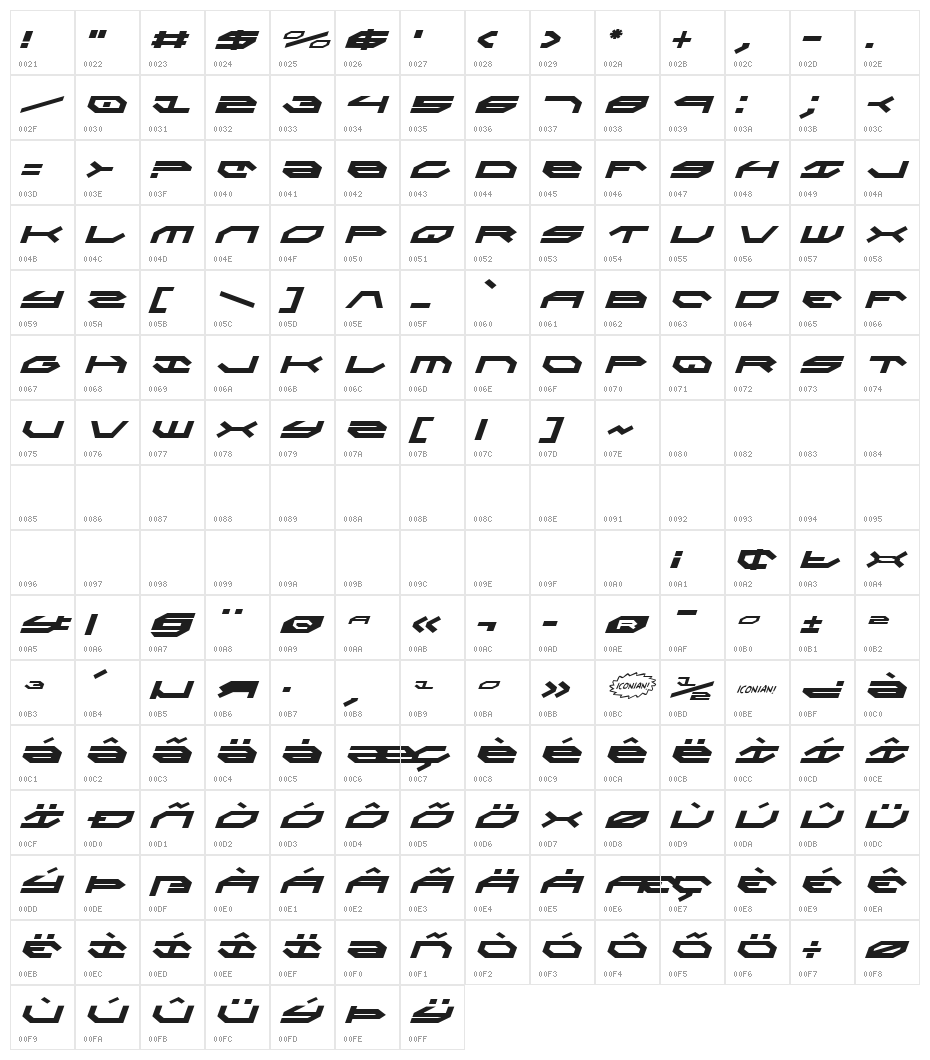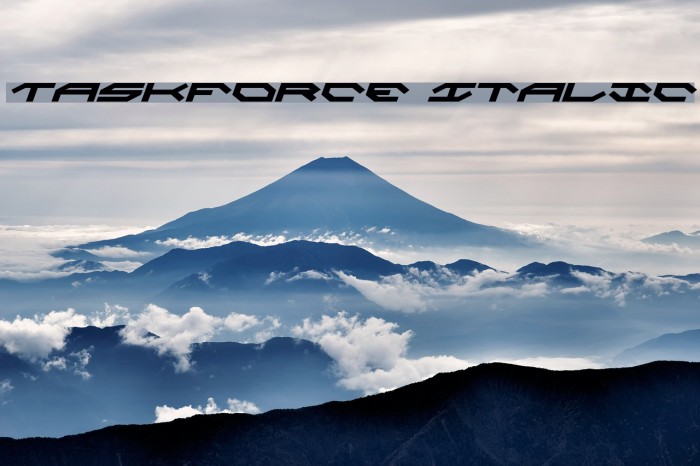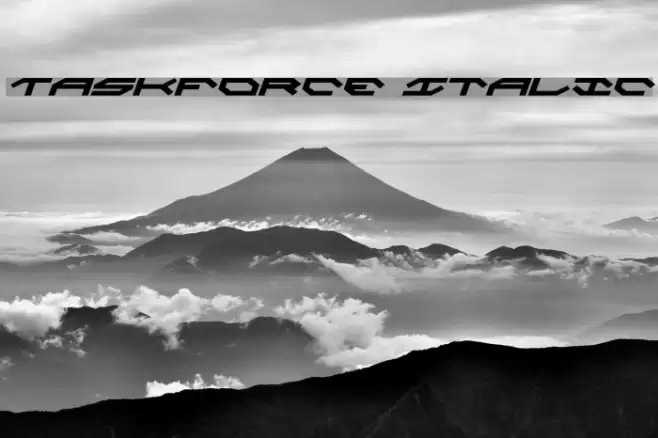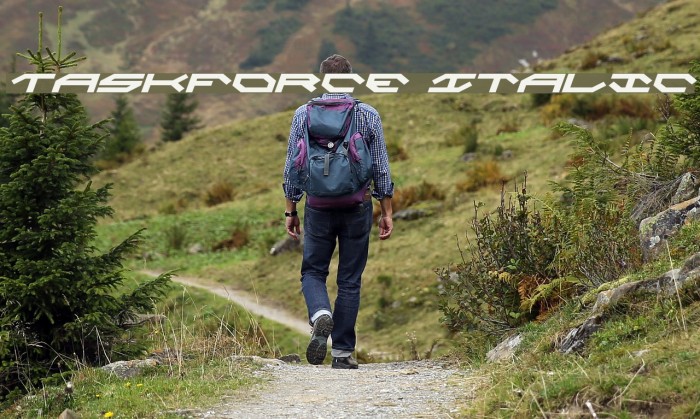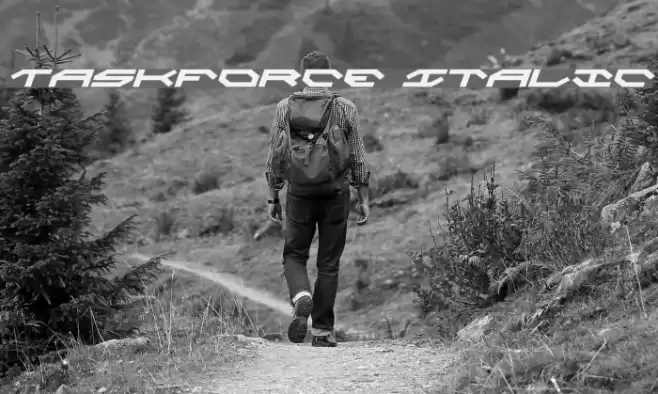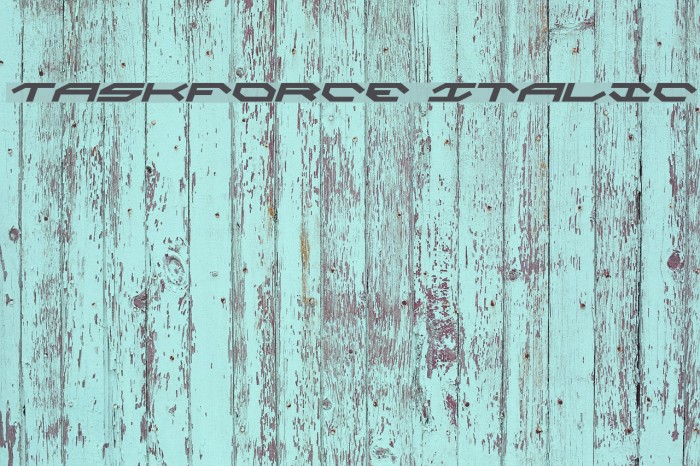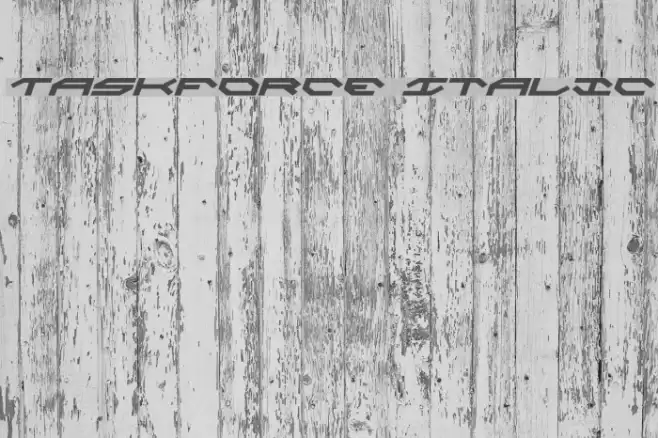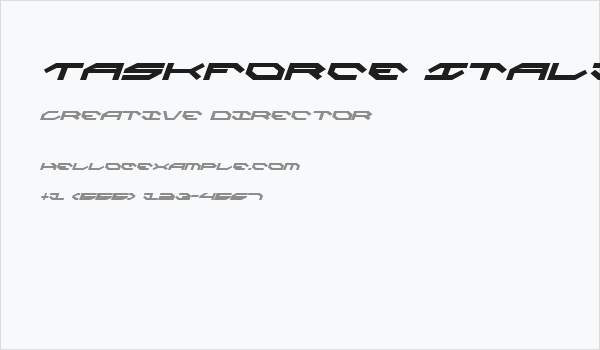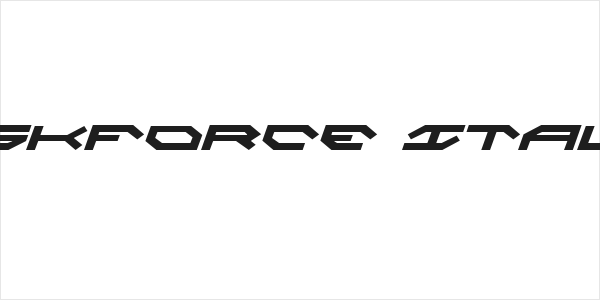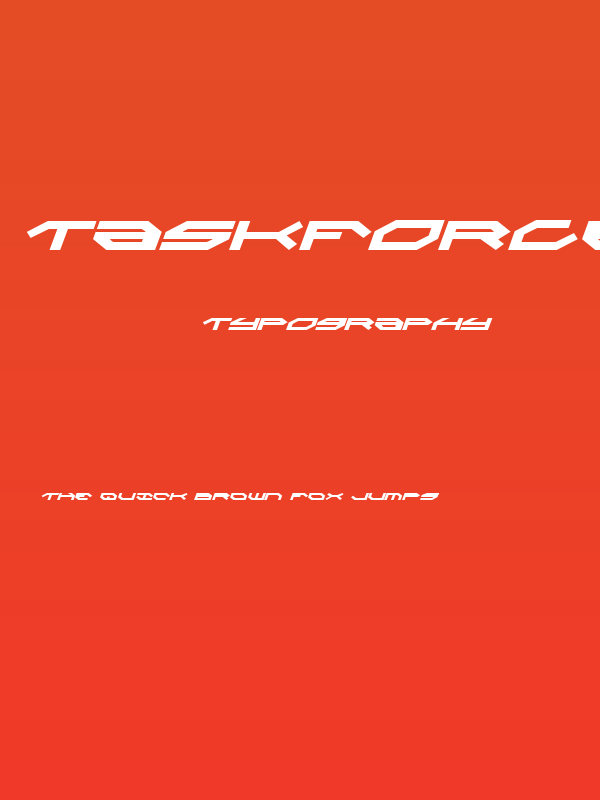
Taskforce Italic Font
Taskforce Italic Description
This font features a futuristic and angular design, characterized by sharp edges and a sleek, italicized form. The letters are bold and dynamic, with a distinct forward slant that conveys motion and speed. The geometric shapes and clean lines give it a modern and technical appearance, making it suitable for projects that require a cutting-edge and innovative look. The numerals and special characters maintain the same angular style, ensuring consistency across all elements. This font is ideal for creating impactful headlines, logos, and branding materials that aim to capture attention and convey a sense of modernity.
| Proposed Projects | Ideal for technology branding, sci-fi themed projects, video game titles, and modern advertising campaigns. |